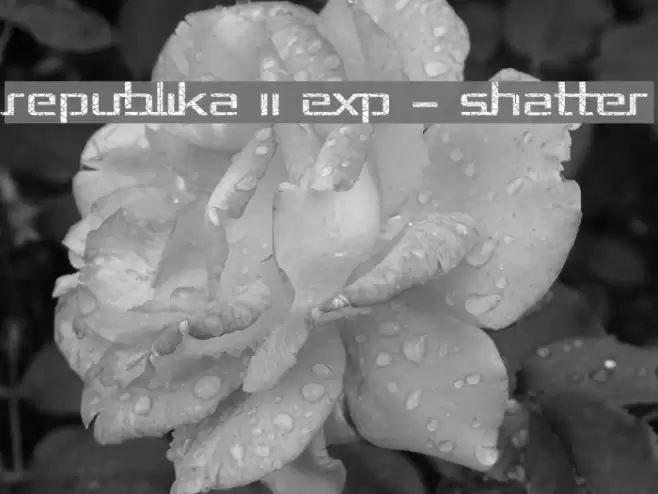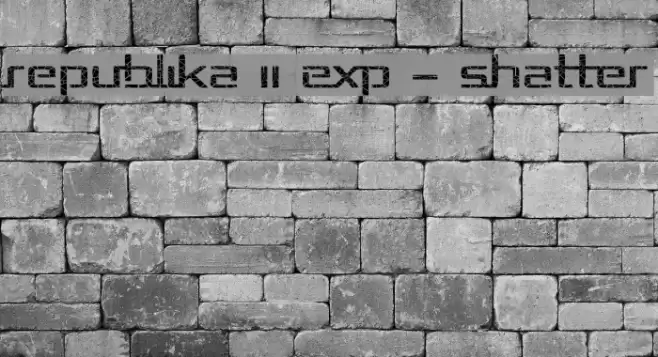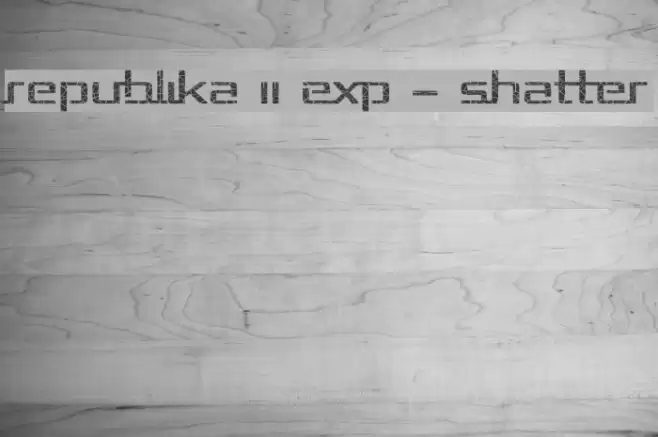
Republika II Exp - Shatter Font
Republika II Exp - Shatter Description
This font features a unique shattered effect, giving each character a fragmented and dynamic appearance. The design is bold and eye-catching, with a modern and edgy style that stands out. The characters are constructed with a geometric precision, yet the shattered effect adds an element of chaos and unpredictability. This combination makes it ideal for projects that require a strong visual impact. The font maintains a consistent weight throughout, ensuring readability despite its decorative nature. It is particularly suitable for creative and artistic applications, where a distinctive and unconventional look is desired.
A bold, shattered-effect font with a modern and edgy style from Uncategorized fonts.
- Proposed Projects: Ideal for posters, album covers, branding, and any project needing a strong visual impact.
- Overall Style: Modern, Edgy